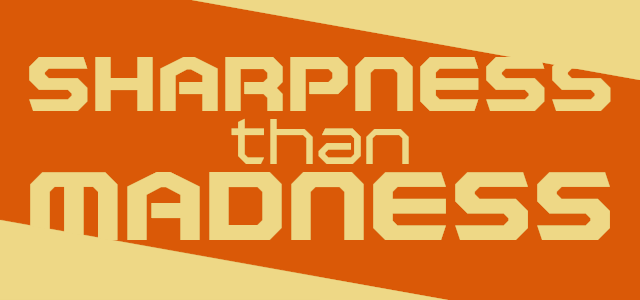
Preview and download Polentical Neon Font. Created by Jayvee Enaguas in Techno Square styles with 100% Free license.
Created and edited By: Jayvee D. Enaguas (Grand Chaos) Licensed By: Creative Commons (CC-BY-SA 3.0) Description: Polentical Neon is a post modern / square font style. Update Log: Version 1.2 - 5/5/2013 - Modified from square to sharp - Fixed in bold 'L' correctly Version 1.1 - 4/21/2013 - Added in Bold and Bold Italic Styles - Fixed in metrics from 200 to 100 © Grand Chaos Productions. Some Rights Reserved. |